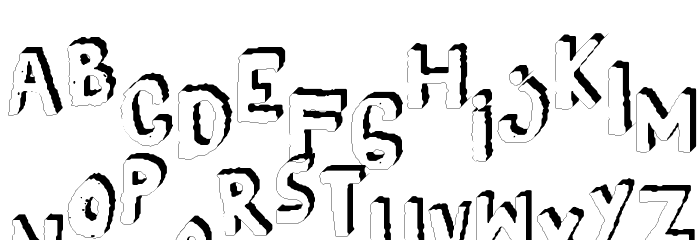
YES_3Dshaken Book Font
This font features a playful and dynamic 3D effect, with each character appearing as though it is slightly raised and casting a shadow. The letters are bold and have a hand-drawn, sketch-like quality, giving them a casual and informal appearance. The uppercase and lowercase letters maintain a consistent style, with rounded edges and a slight tilt that adds to the whimsical feel. The numbers and special characters follow the same design, ensuring a cohesive look across all elements. This font is ideal for projects that require a fun and engaging visual impact.
A playful 3D font with a hand-drawn, sketch-like style.
- Proposed Projects: Ideal for children's books, comic strips, playful branding, and creative posters.